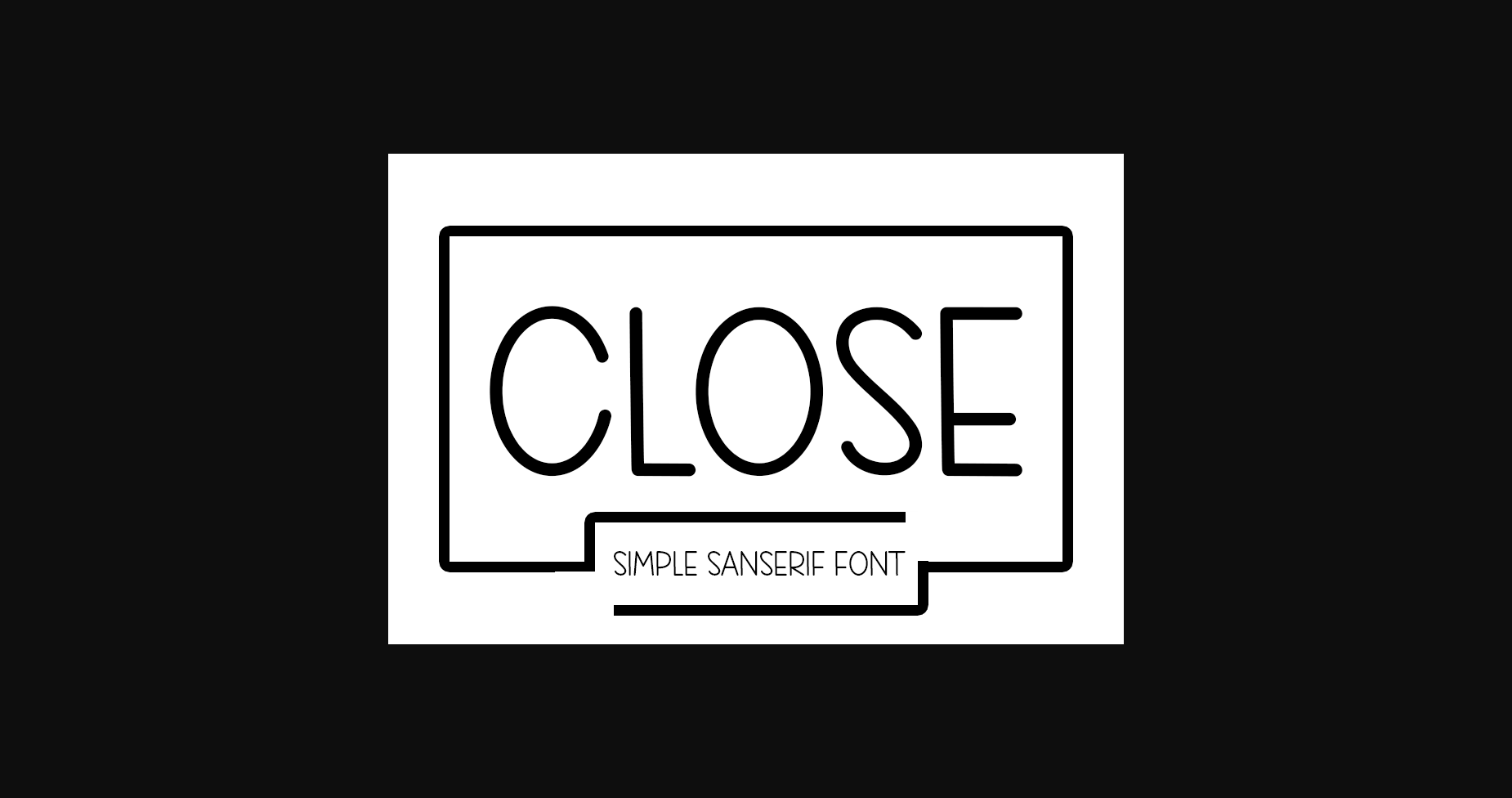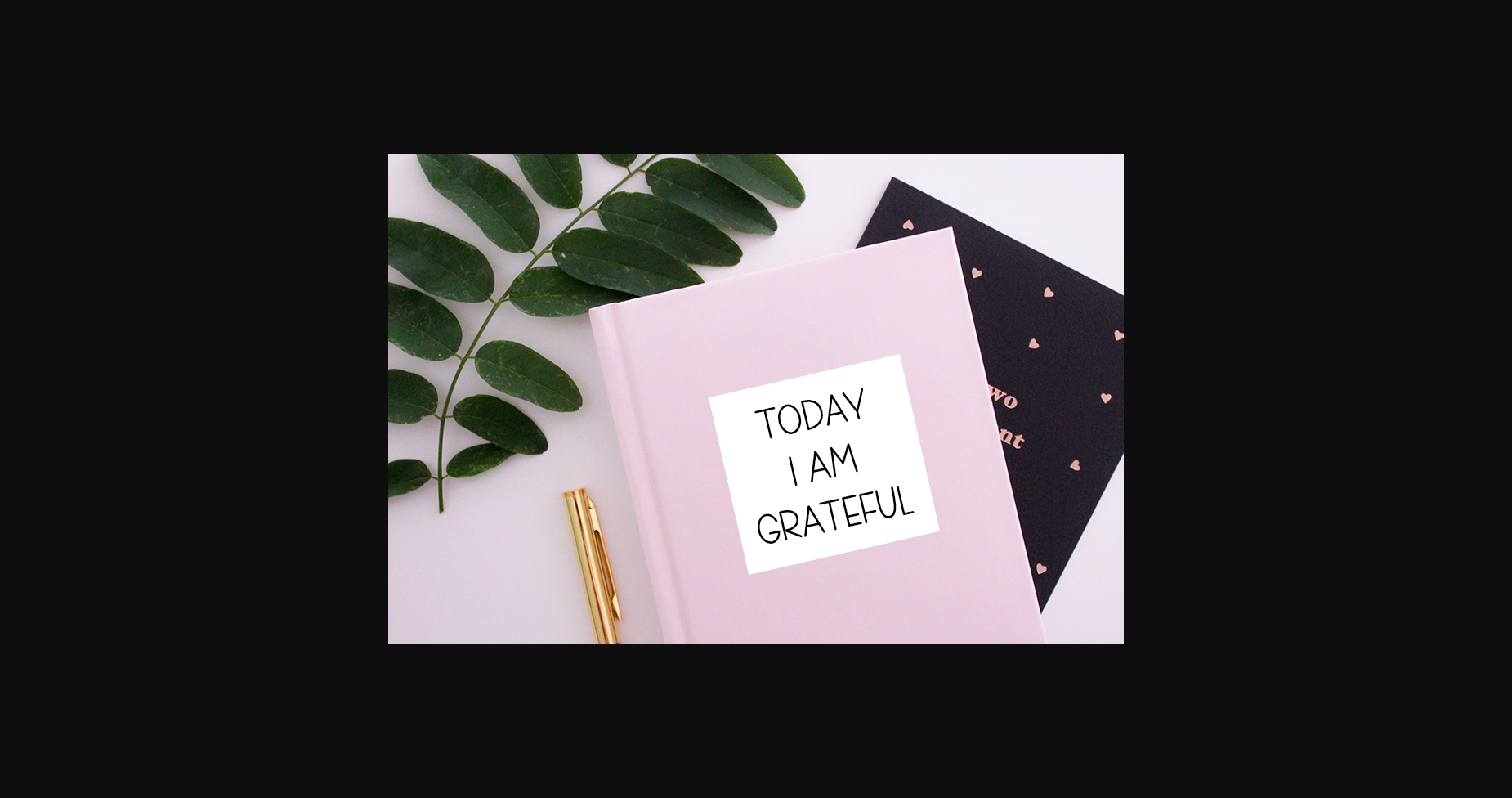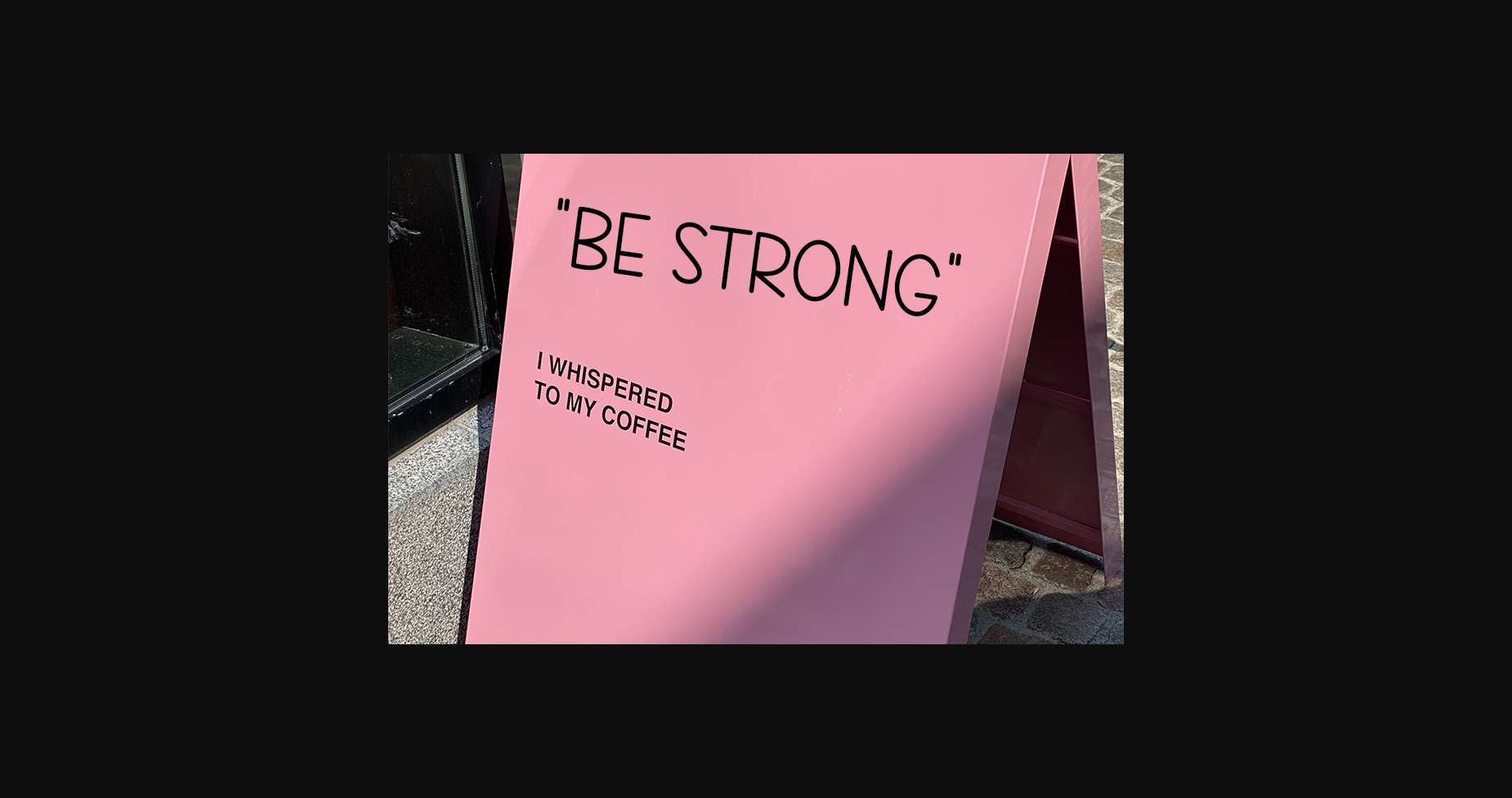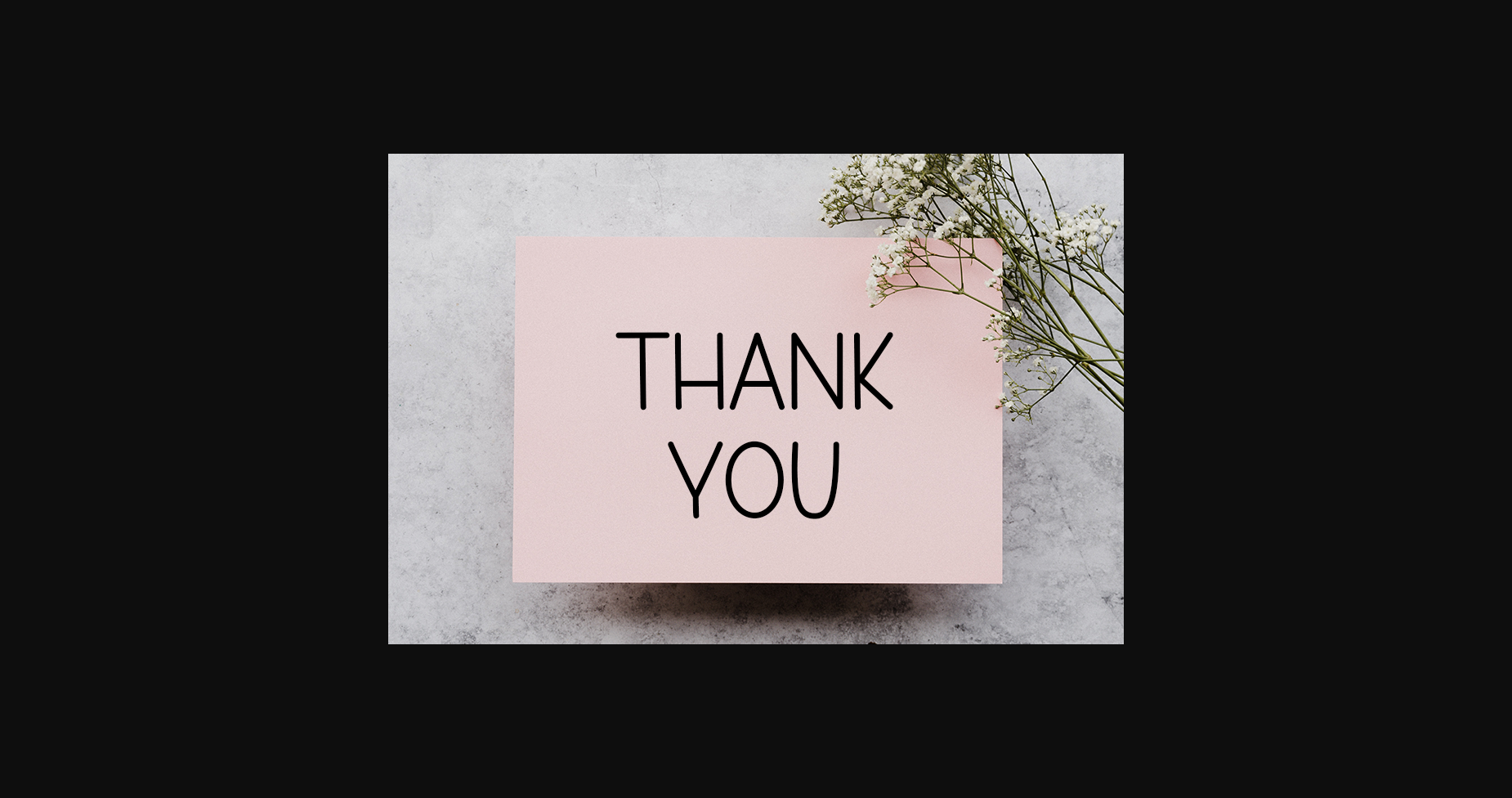
About Close Font
Close is a cool and modern sans-serif font. Whether you’re using it for crafts, digital design, presentations, or creating greeting cards, this font has the potential to become your go-to font, whatever the occasion.